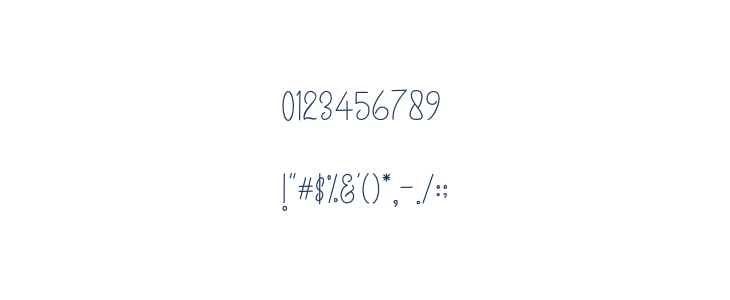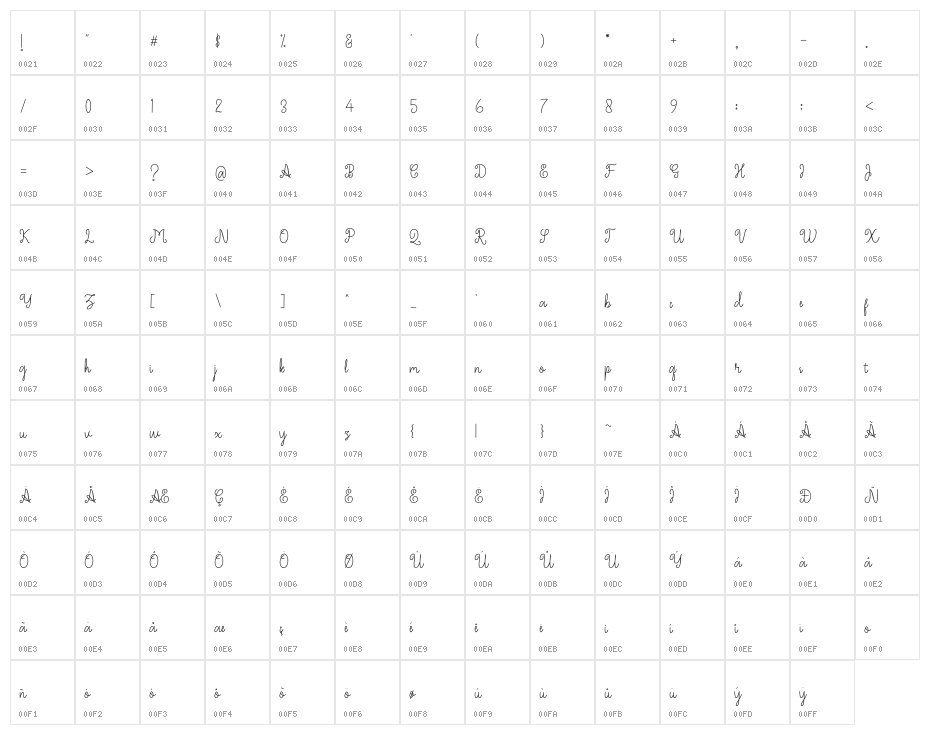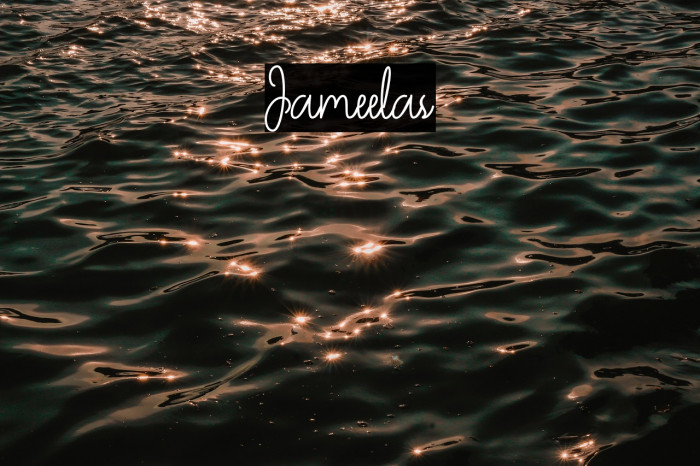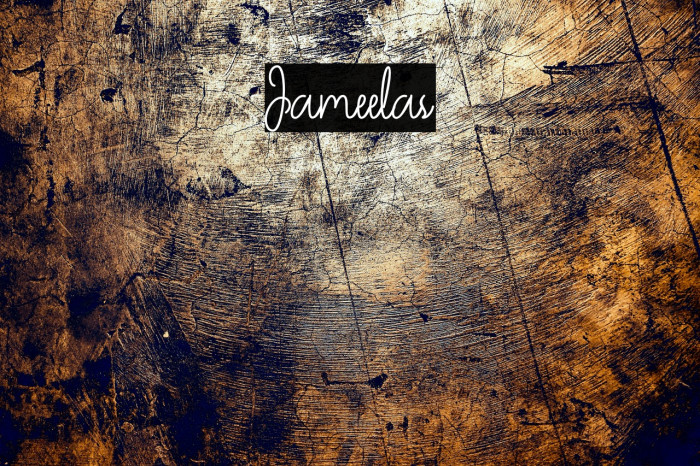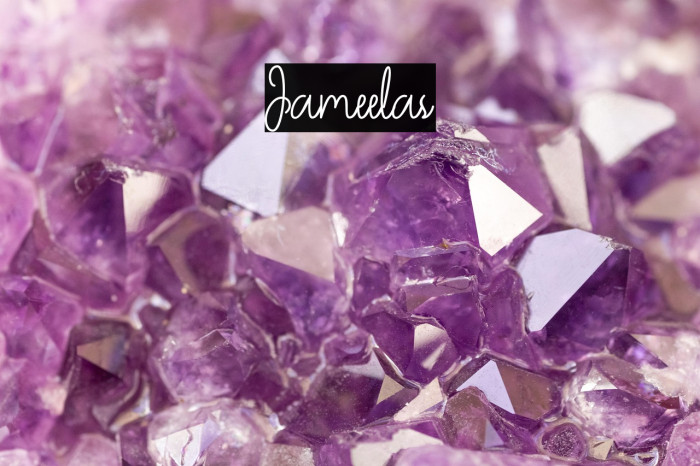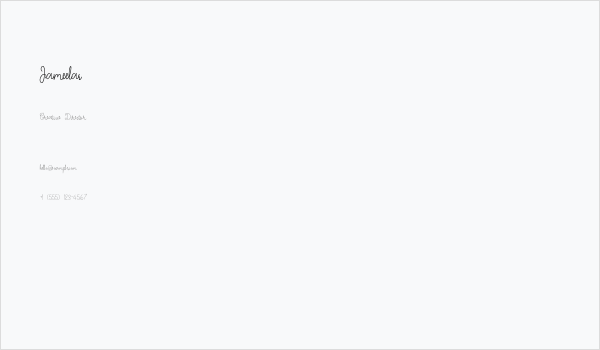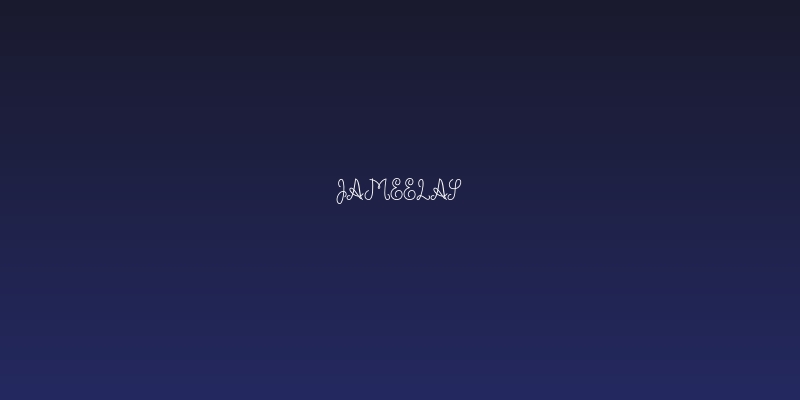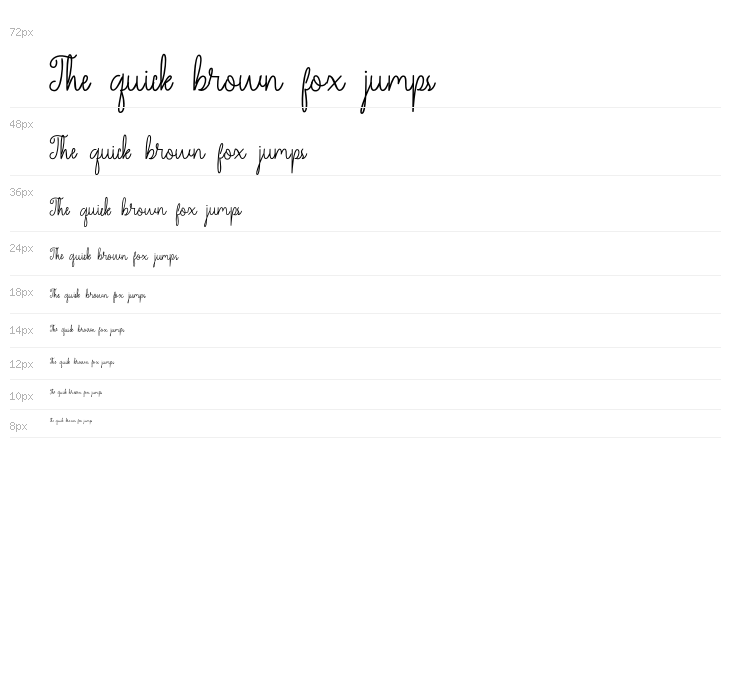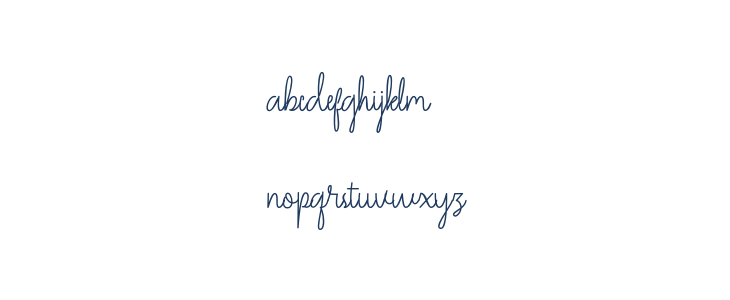
Jameelas Font
Jameelas Description
This font features an elegant and flowing script style, characterized by its delicate and intricate letterforms. The uppercase letters are ornate with loops and swirls, giving a sense of sophistication and grace. The lowercase letters maintain a consistent flow, enhancing readability while preserving the decorative nature. Numbers and special characters are designed to match the overall aesthetic, making them suitable for various design contexts. The font's thin strokes and high contrast add to its refined appearance, making it ideal for formal and decorative uses.
| Overall Style | Elegant, Decorative |
| Use Case | Headlines, Invitations, Decorative text |
| Proposed Projects | Ideal for wedding invitations, elegant branding, greeting cards, and decorative headlines. |